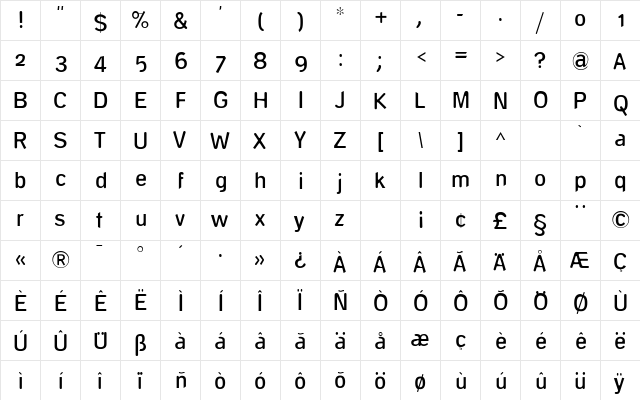
DeconstructMedium Regular
Design Context for DeconstructMedium Typeface
DeconstructMedium takes a measured approach to typography — its balanced proportions and neutral character make it a reliable workhorse for both digital and print work.